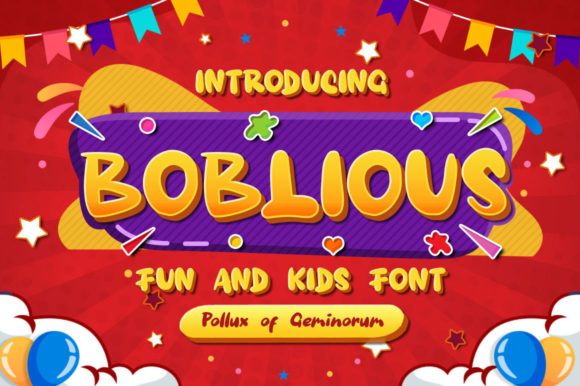
The Boblious Font: A Cool and Bubbly Display Font to Elevate Your Designs
I’ll never forget the time I was working on a project for a children’s birthday party invitation. I had the perfect design concept, but something was missing – a font that could bring the whole thing together. I scrolled through my font library, but nothing seemed quite right. That’s when I stumbled upon Boblious, a cool and bubbly display font that instantly caught my eye. In this article, I’ll share my experience with Boblious, its features, and how to make the most of it in your designs.
My Honest Review of Boblious
As a designer, I’m always on the lookout for fonts that can add a touch of personality to my projects. Boblious definitely delivers! Here are some things I love about this font:
- ✨ Unique and playful design: Boblious has a chunky, lettered style that’s perfect for making a statement.
- ✅ Ease of use: This font is incredibly easy to read, even in larger sizes.
- 💡 Versatility: Boblious works well for a variety of design projects, from invitations and posters to social media graphics and more.
Of course, no font is perfect, and Boblious has a few small quirks:
- 🤔 Limited use in body text: Due to its chunky design, Boblious works best as a display font. It may not be the best choice for longer blocks of text.
- ⚠️ Glyph limitations: While Boblious has a range of glyphs and stylistic alternates, it may not have every special character you need.
The Story Behind Boblious
Boblious was designed with one goal in mind: to create a fun, playful font that brings joy to designs. While I couldn’t find any information on the actual designer, it’s clear that Boblious was crafted with love and attention to detail.
| Font Name | Boblious Font |
| Author | Pollux of Geminorum |
| What type of projects is Boblious best suited for? | Boblious works well for a variety of design projects, including invitations, posters, social media graphics, and more. |
| Is Boblious a difficult font to read? | No, Boblious is surprisingly easy to read, even in larger sizes. |